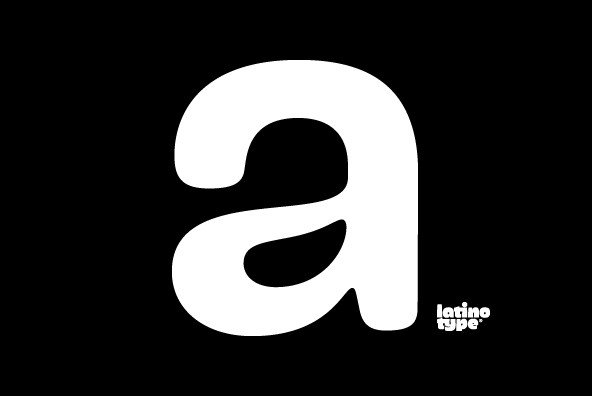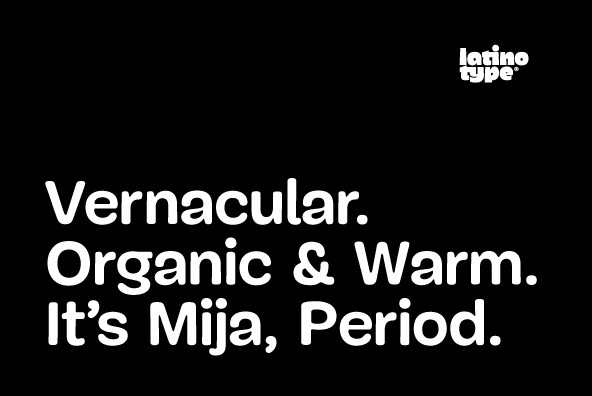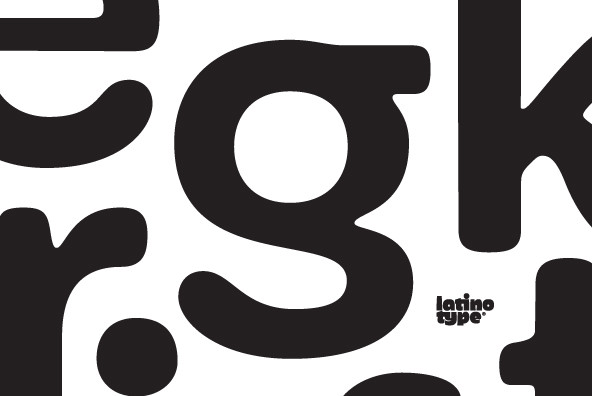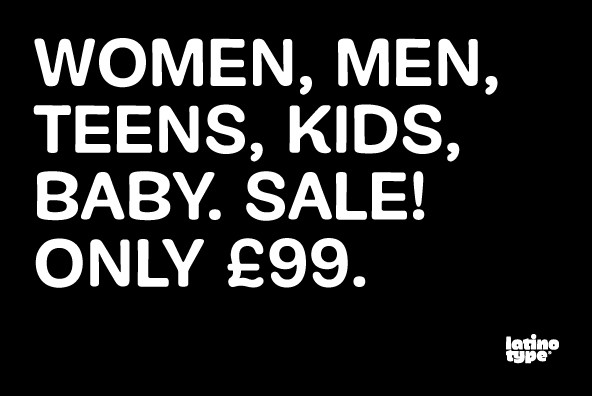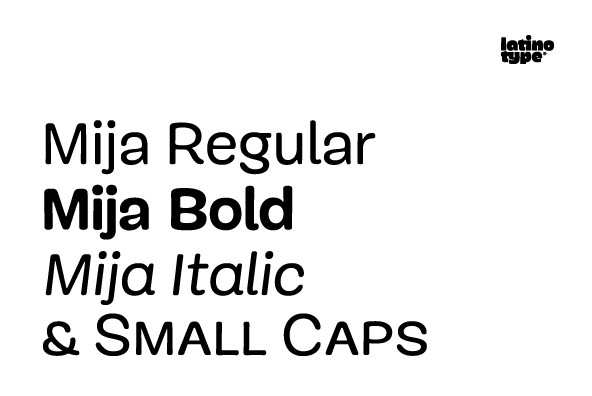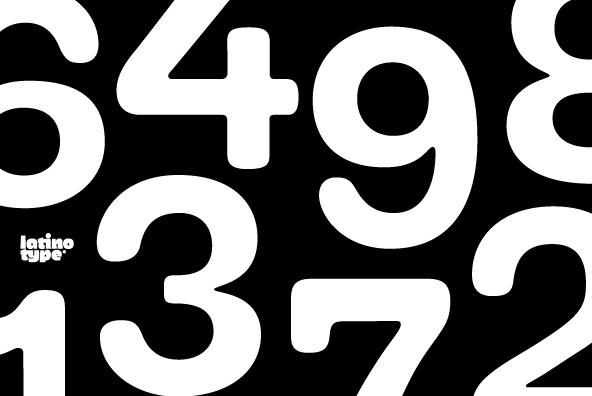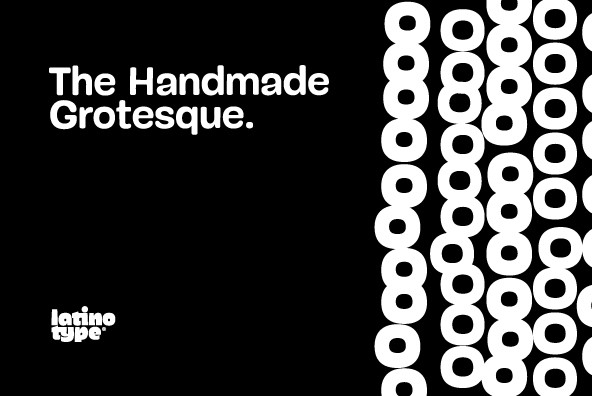
Designed by Miguel Hernández. Mija is a grotesk vernacular handmade typeface whose imperfections make it perfect. It is a fresh hand-painted display face with a warm and organic feel. This full-of-ink-traps typeface is inspired by local vernacular signs. Mija looks good at both large and small sizes. The family is available in a 4-font combo package, suited for solving most common text hierarchy problems in graphic design; Roman, Bold, Italic and Small Caps. Mija is derived from the words 'mi hija', which literally translated means 'my daughter'. Mija is a Latin American Spanish term of endearment most of the time used by an older person to a younger girl or woman.